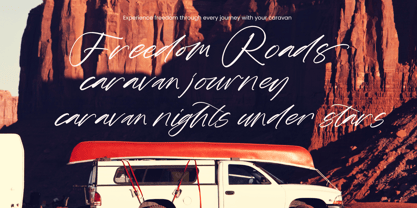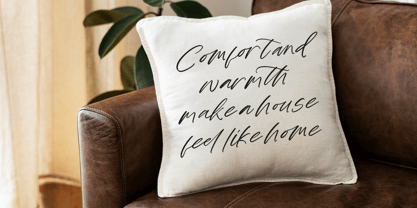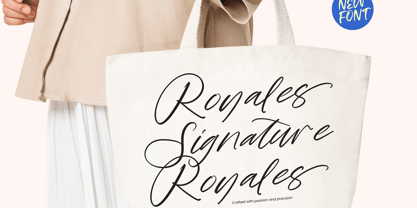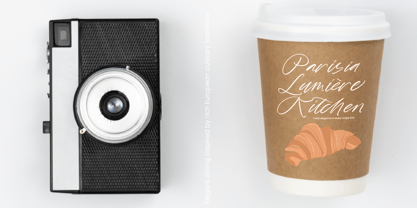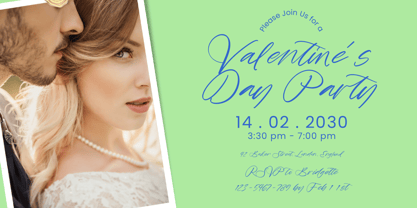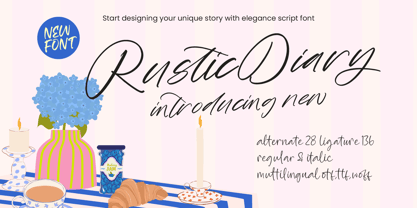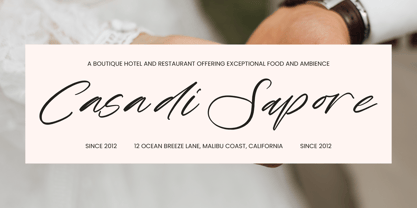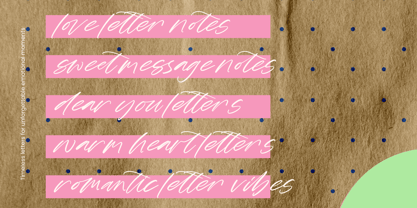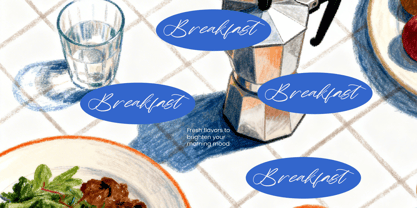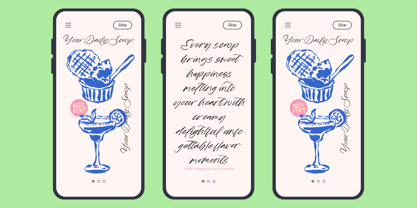
Rustic Diary
The Rustic Diary Font Family was designed by Heru Utama Putra and published by Stylishtype Studio. Rustic Diary contains 2 styles and family package options. More about this family
Rustic Diary is an elegant script font designed to capture warmth, charm, and personal storytelling through graceful handwritten strokes. Featuring smooth curves and refined letterforms, this typeface embodies a delicate balance between rustic nostalgia and modern sophistication. Perfect for wedding invitations, branding, packaging, lifestyle editorials, greeting cards, and social media designs, Rustic Diary adds a heartfelt and intimate touch to every project. With 136 ligatures, 28 alternates, and both regular and italic styles, it offers extensive typographic versatility and seamless customization. Rustic Diary delivers timeless elegance and expressive for both print and digital applications.